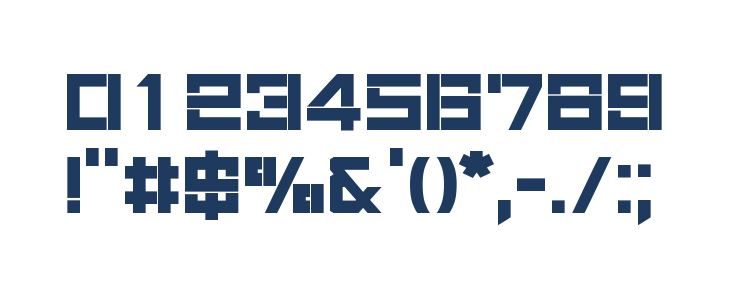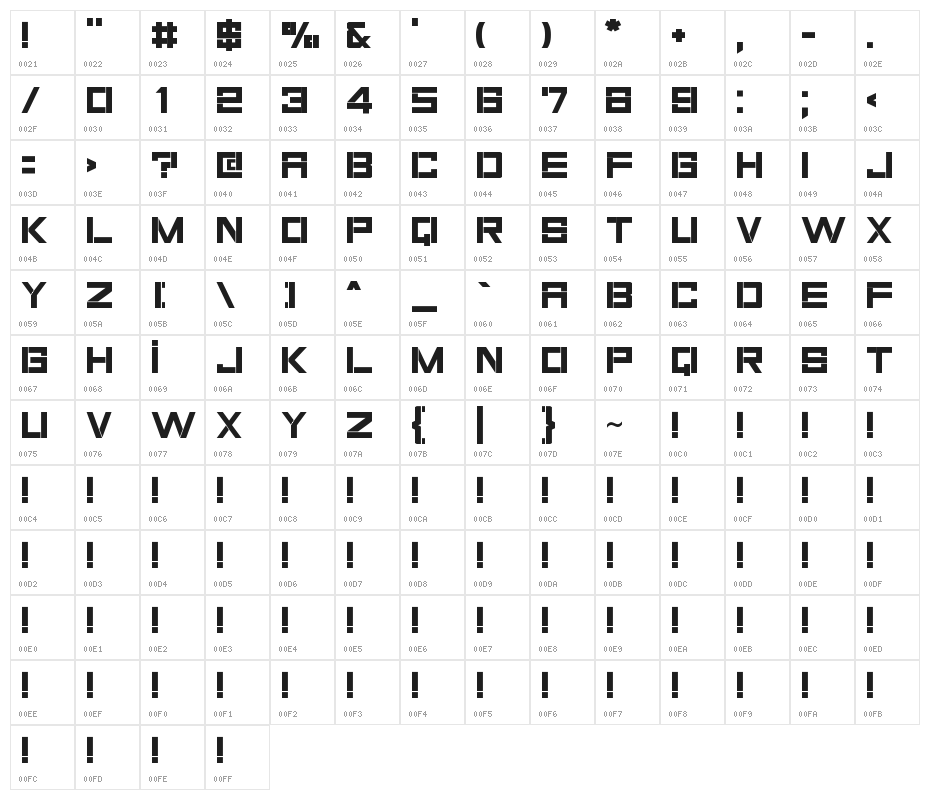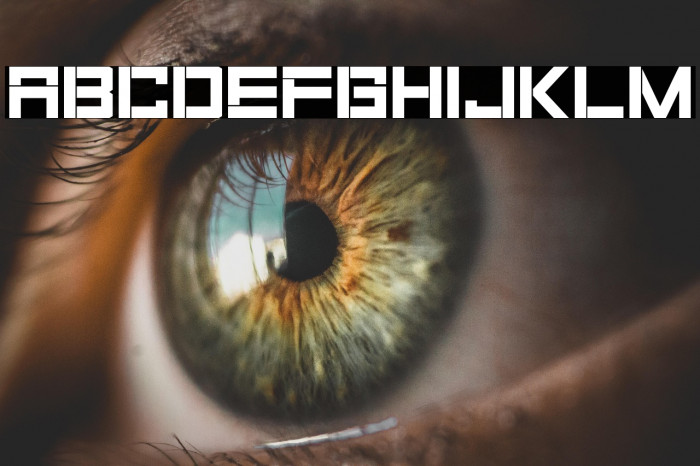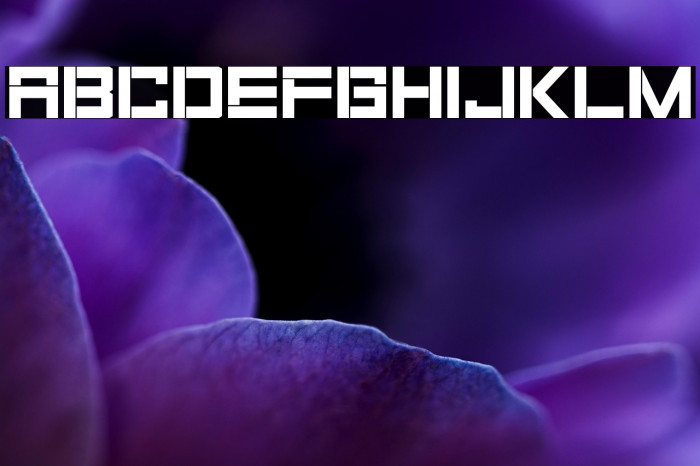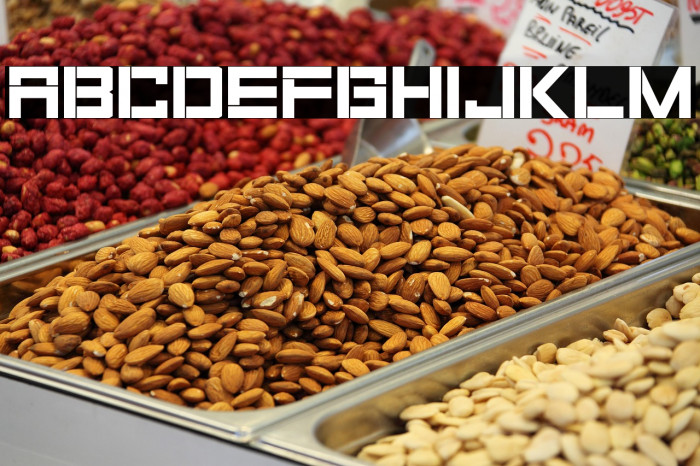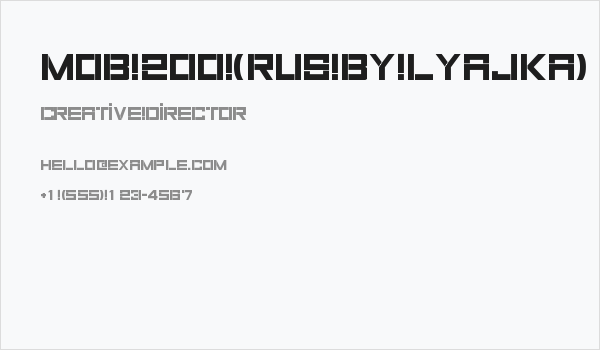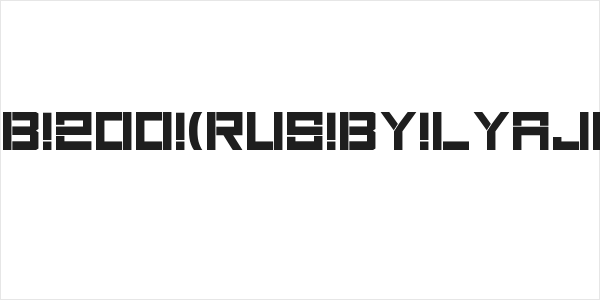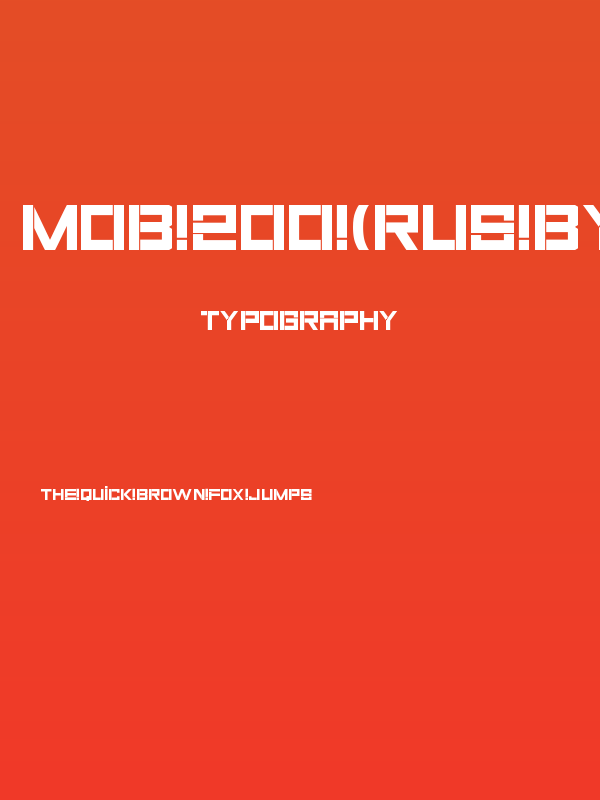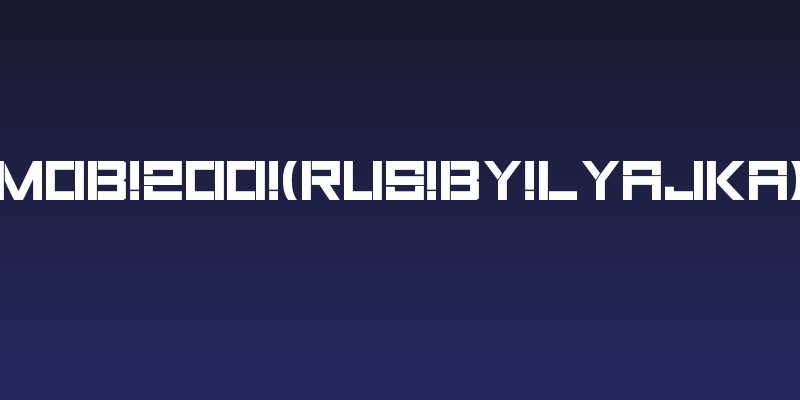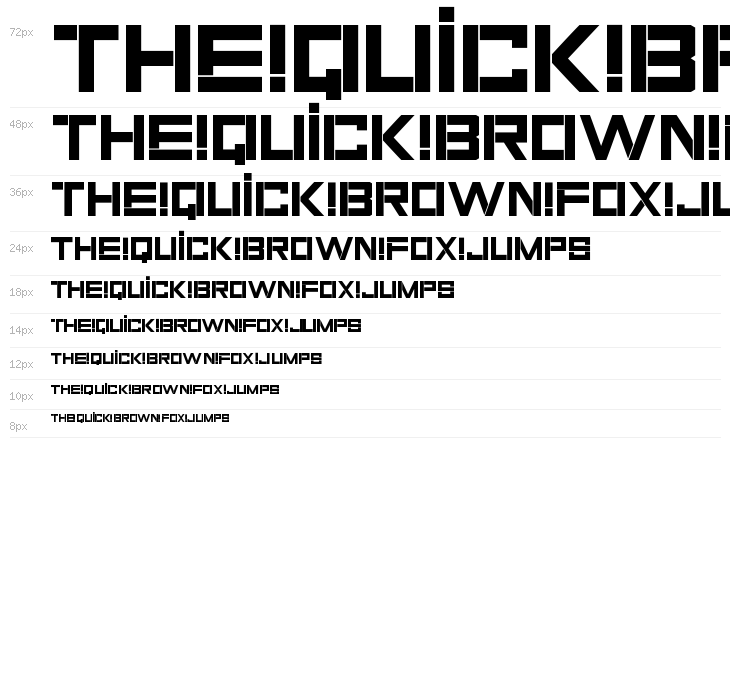
Mob 200 (RUS BY LYAJKA) Font
Mob 200 (RUS BY LYAJKA) Description
This font features a bold, geometric design with a futuristic and industrial feel. The characters are constructed with sharp angles and straight lines, giving it a blocky and robust appearance. The uppercase and lowercase letters maintain a consistent style, with a uniform height and width that enhances its structured look. The numerals and special characters follow the same design principles, ensuring a cohesive visual identity across all glyphs. The font's distinct style makes it stand out, ideal for projects that require a modern and edgy aesthetic.
| Proposed Projects | Ideal for branding, posters, video game graphics, and sci-fi themed projects. |